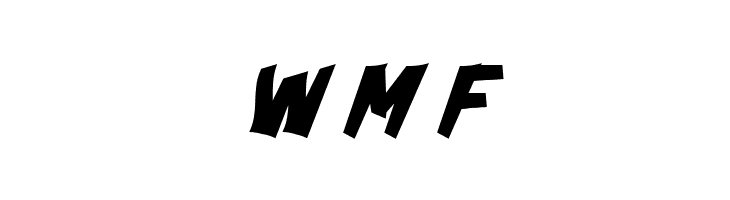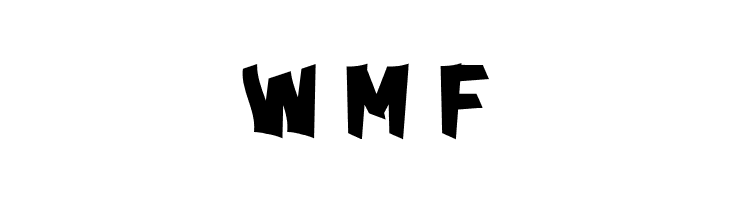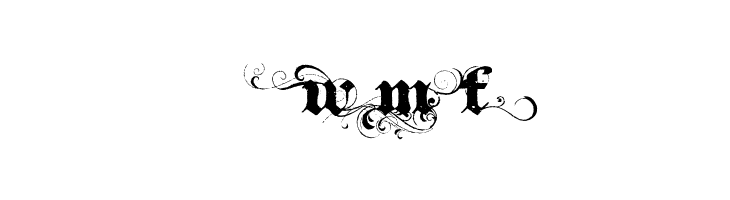
Madfont Thorns Font
Font by Harold Lohner - www.haroldsfonts.com
A bold, decorative font with thorn-like embellishments for a unique, edgy look.
BR Thorns Font
An intricate, decorative font with thorn-like, floral patterns.
Thorn Font
A bold, thorny font with a gothic, punk-inspired design.
Thorne Normal Font
A bold, rounded font with a modern and clean appearance.
Thorne Shaded Font
Font by Dieter Steffmann
A bold, shaded font with a vintage, three-dimensional style.
THOrneShadedOpti Font
A bold, three-dimensional font with a vintage-inspired shadow effect.
Thorns Font
Font by www.seansart.net
An edgy, thorn-inspired font with a gothic and aggressive style.
BurweedICG Thorny Font
A bold, thorny font with sharp, angular edges and a dynamic, edgy style.
Luna thorn Font
LunaLRB - www.lunalrb.com
A whimsical, decorative font with thorn-like embellishments.
THORNY Font
Font by Ditya Ananto
A thorn-adorned decorative font with a rugged and edgy style.
ThornyRock Font
A bold, dynamic brush script font with expressive strokes and a hand-painted look.
The Lord Night Thorn Font
A bold, cursive font with dramatic flourishes and high contrast strokes.
THORN Font
A bold, brushstroke-style font with dynamic and textured characters.
Thorn_Heart Font
A decorative font with bold, italicized characters encased in heart shapes.
Thorny Bits Regular Font
Morel Rooms - Jim Morel
A bold, thorn-inspired font with sharp, edgy details.
Anya Thorns Demo Font
A rugged, hand-drawn font with a textured, brush-like appearance.
The Lord Night Thorn Swash Font
An ornate and decorative font with intricate swashes and flourishes.